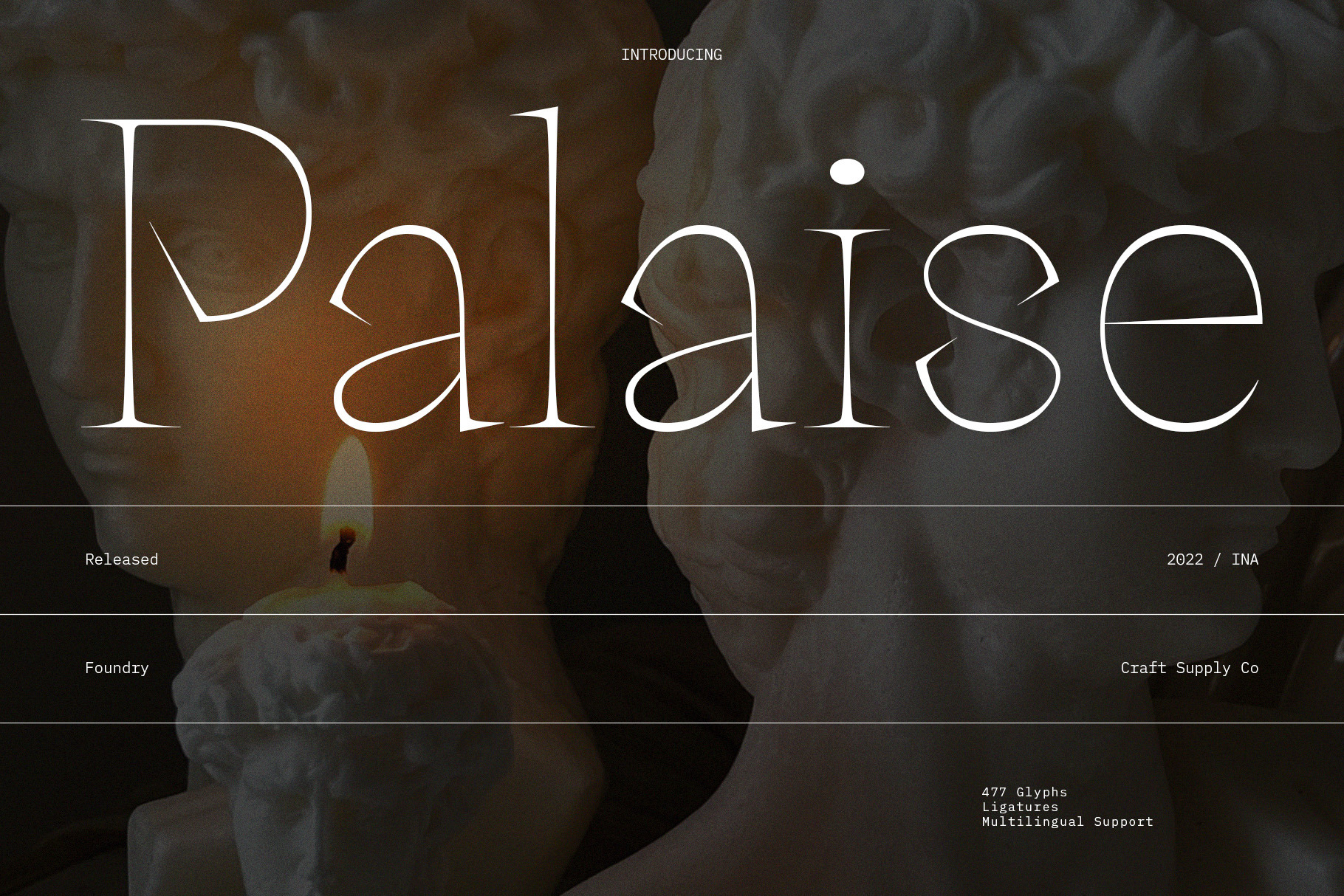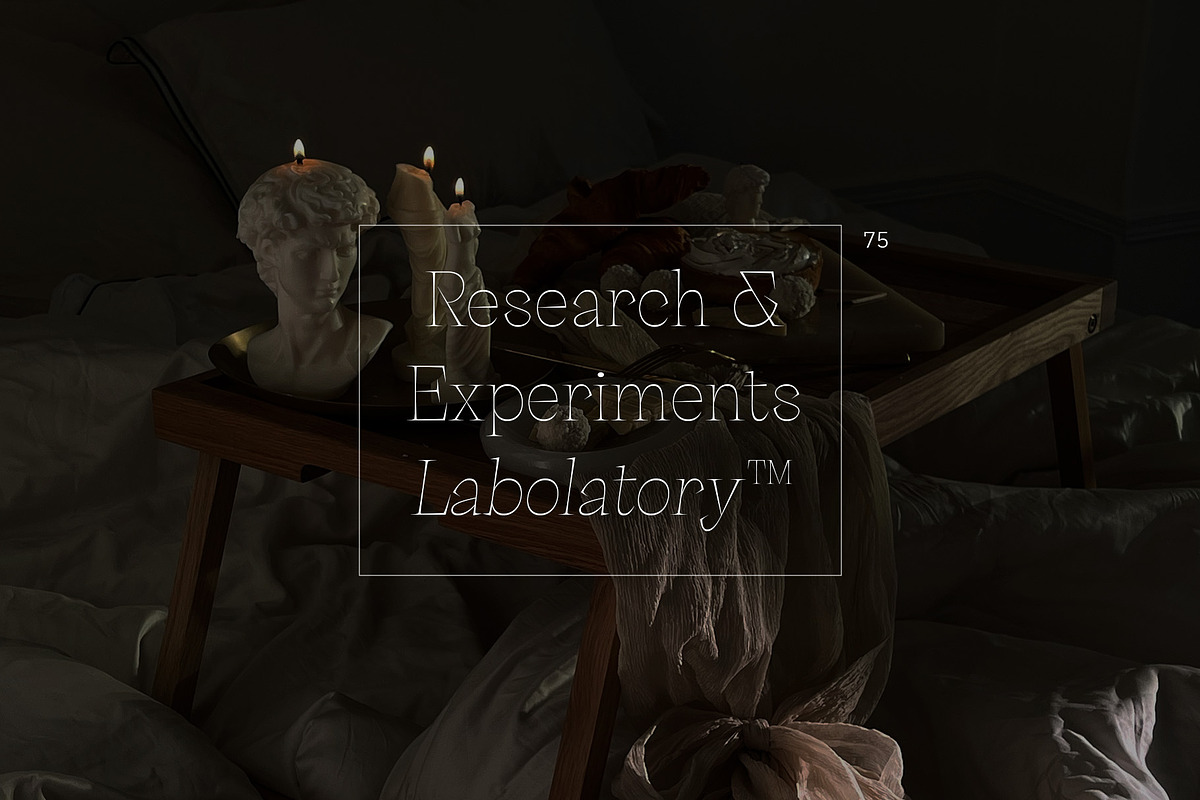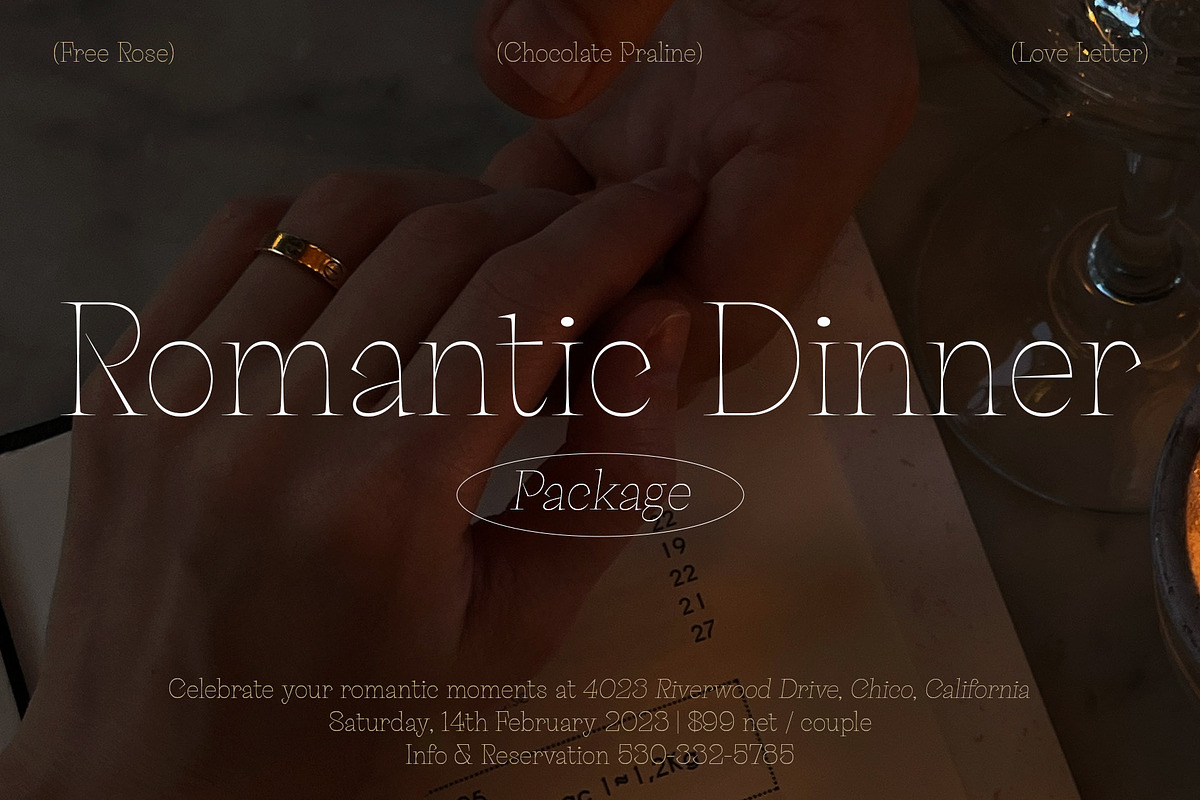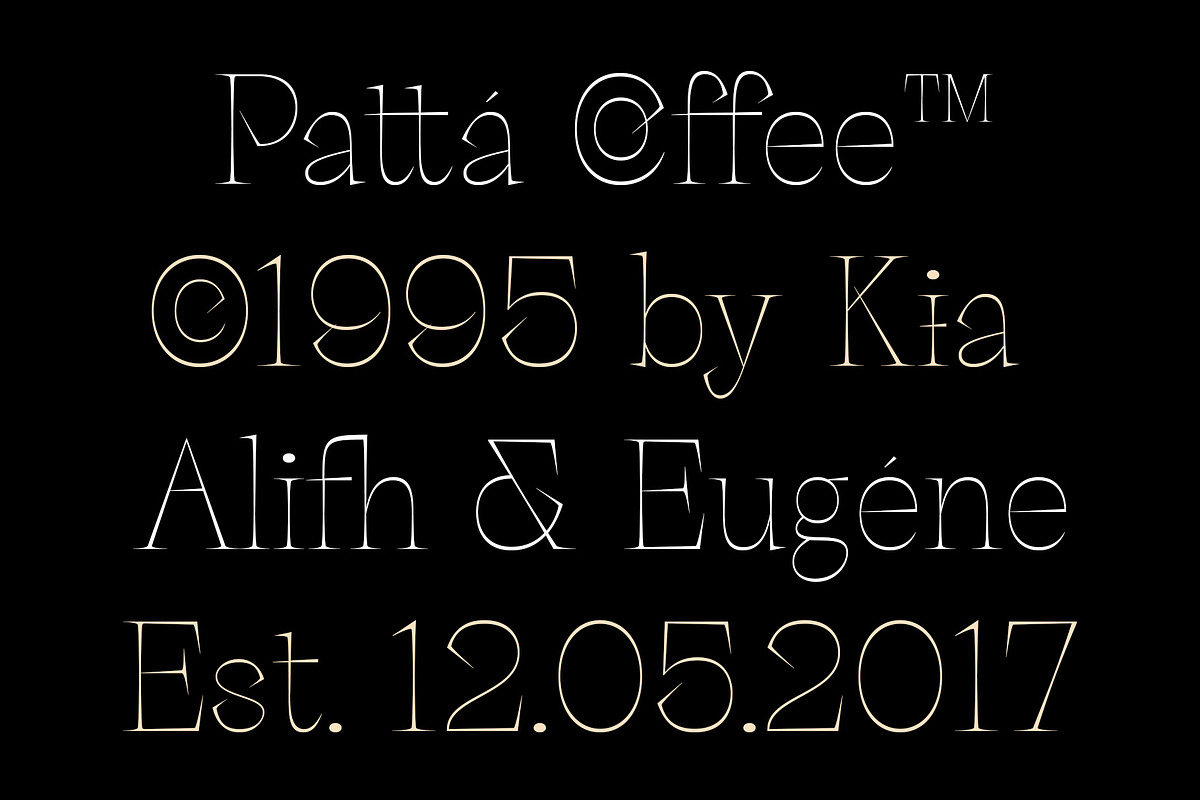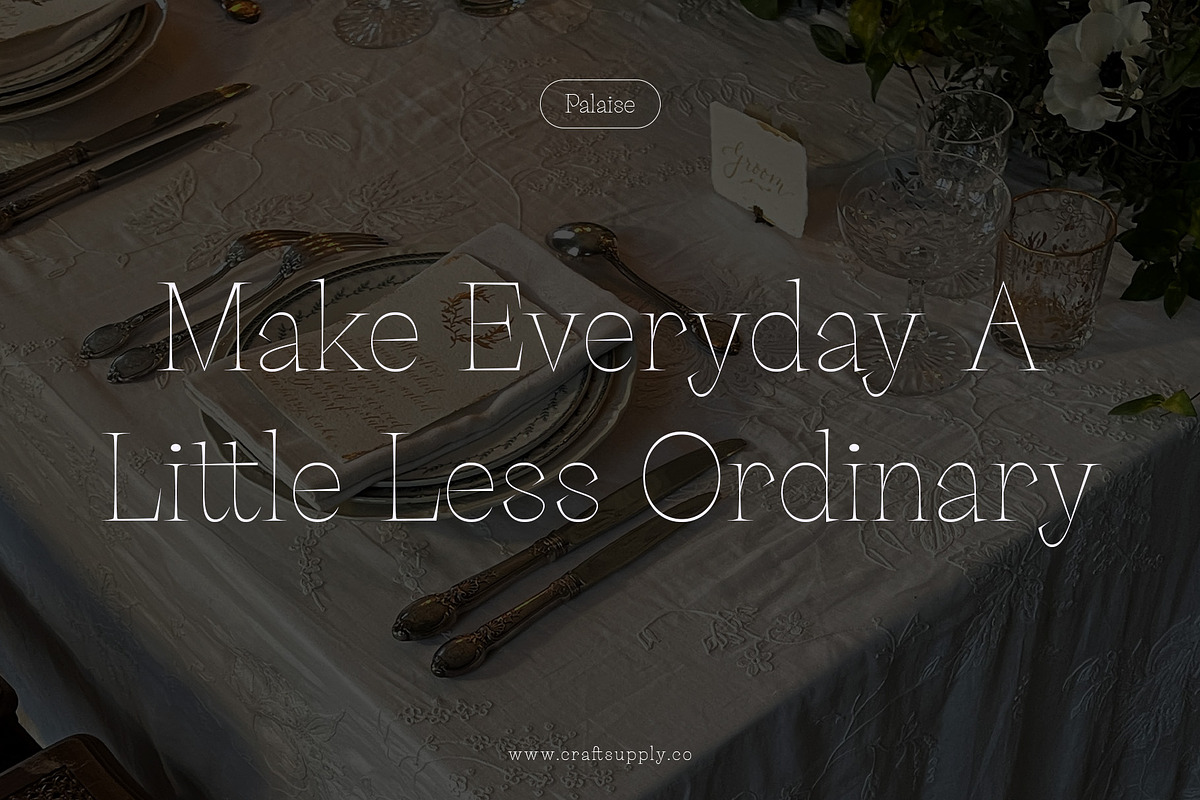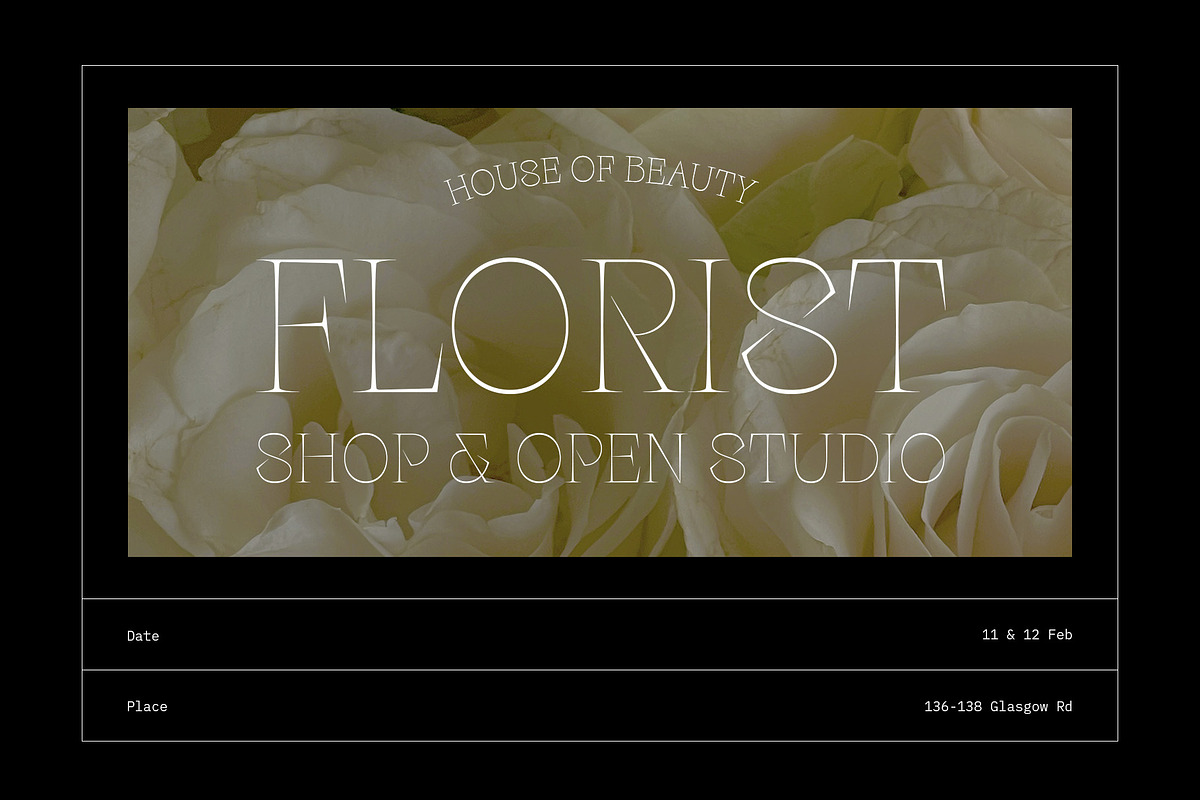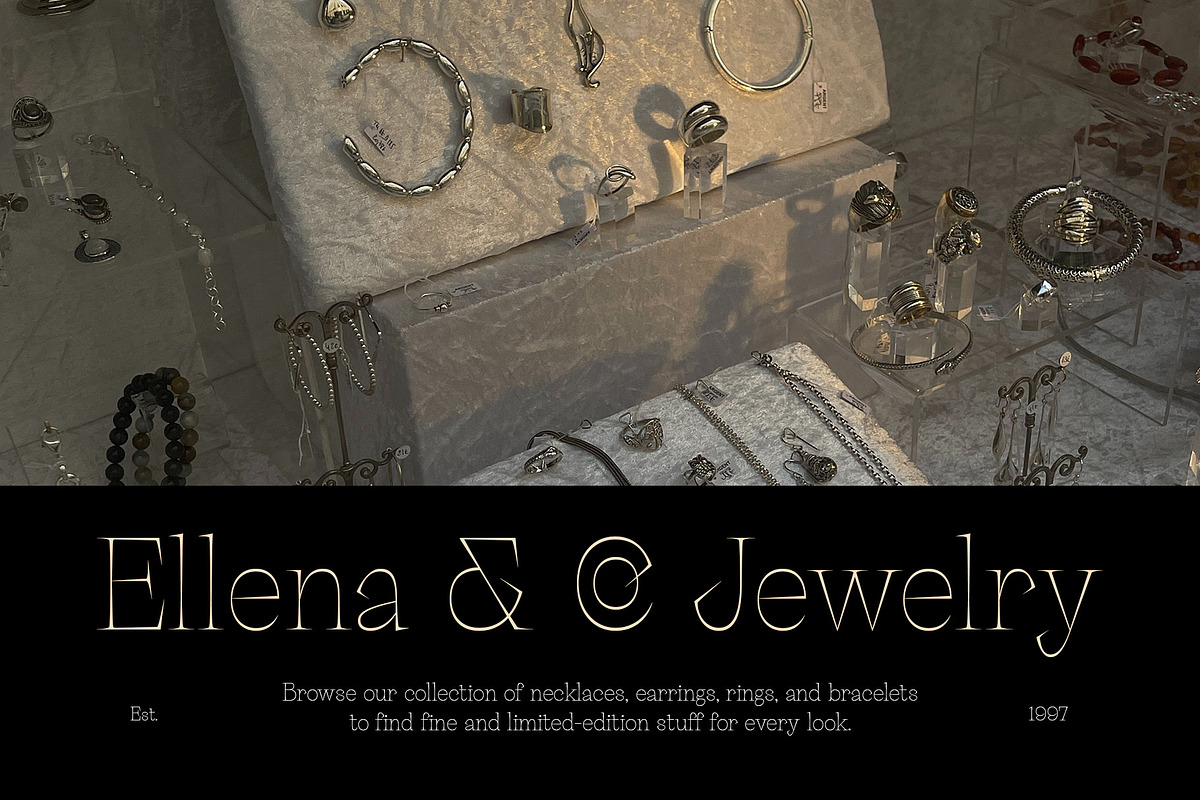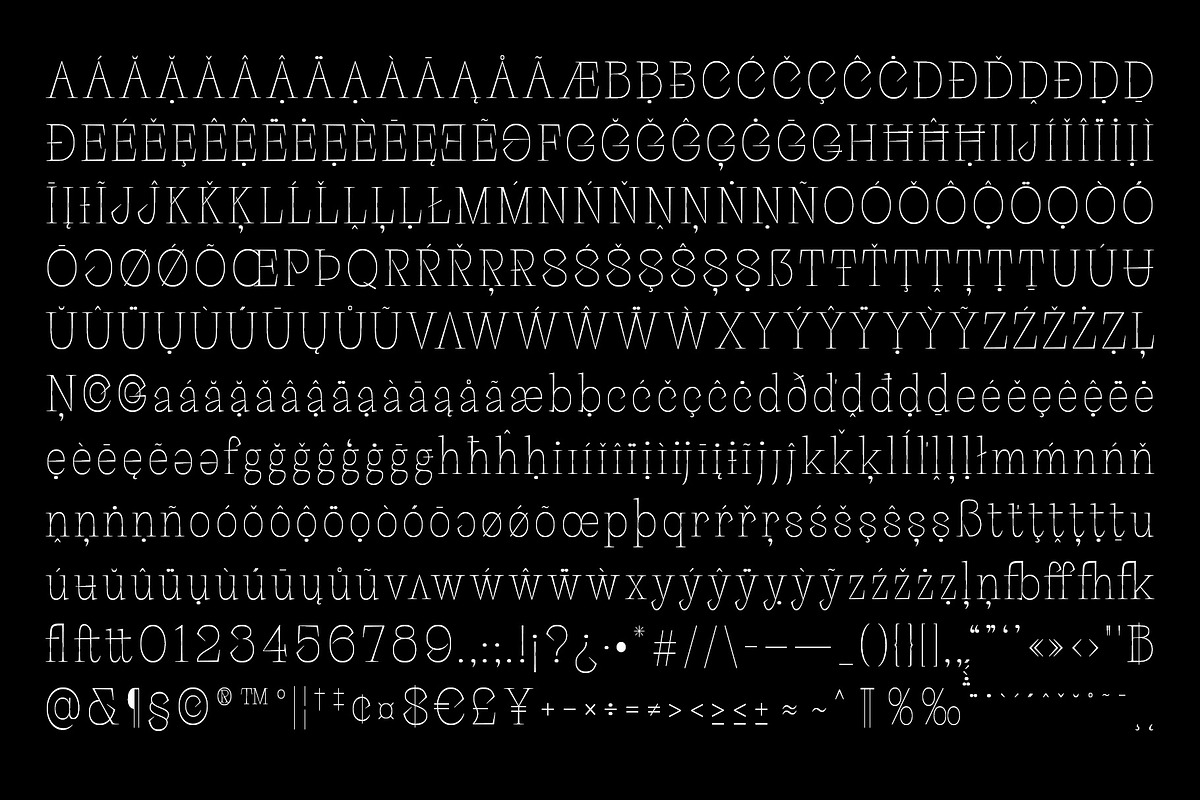
Palaise - Display Serif Typeface
Introducing Palaise, a charismatic serif typeface combines long and sharp edge structure to maintain a flashy look for display purposes.
- Palaise Regular
- Palaise Italic